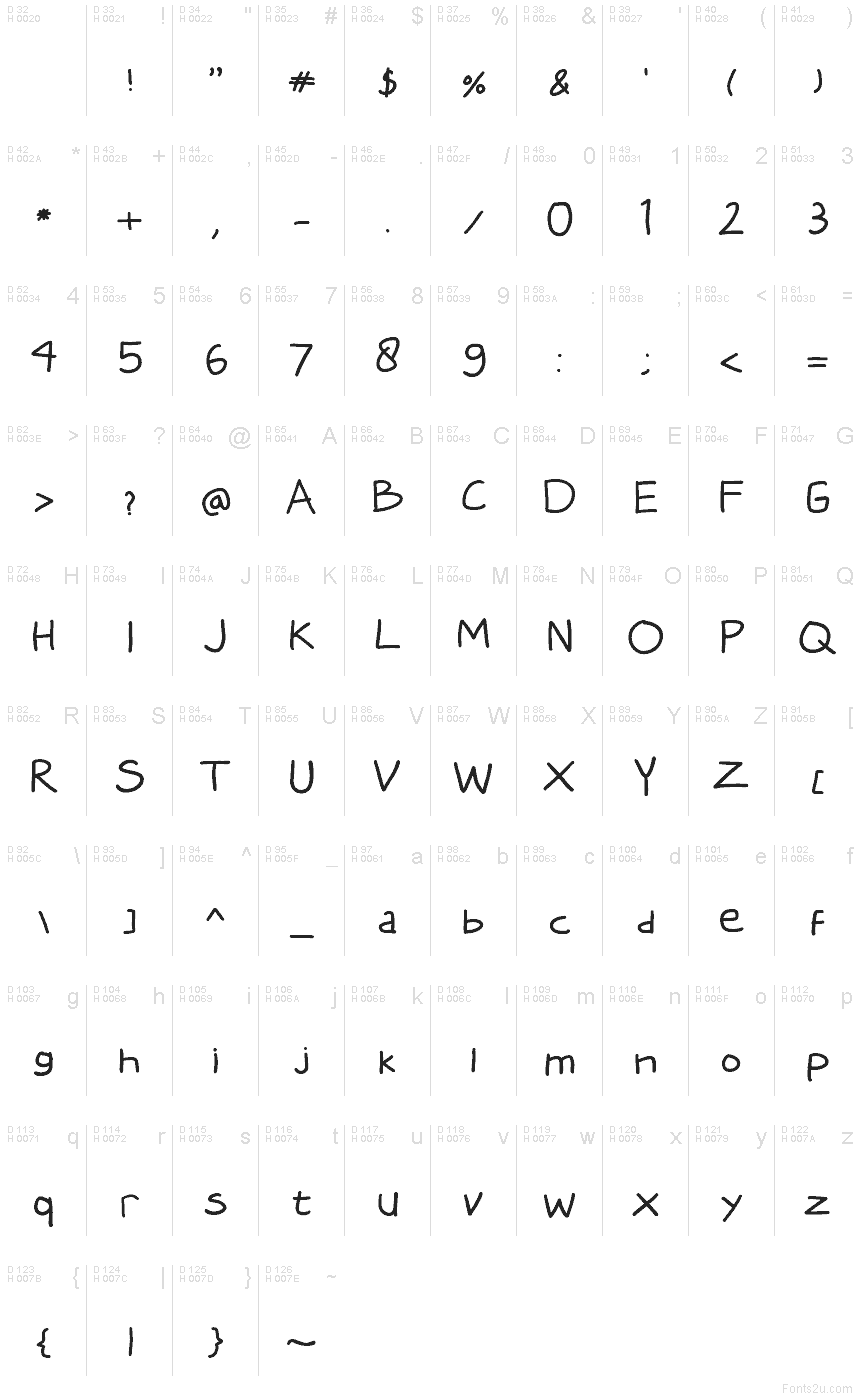
Messy Board
Messy Board font by Origin Type is a free handwritten font with an informal and casual style. This approachable typeface has irregular baselines that add a playful personal touch to each of its letterforms.
Use Messy Board in greeting cards, invitation designs, posters and flyers, websites or landing pages, social media posts, advertisements and just about any artistic project or campaign.